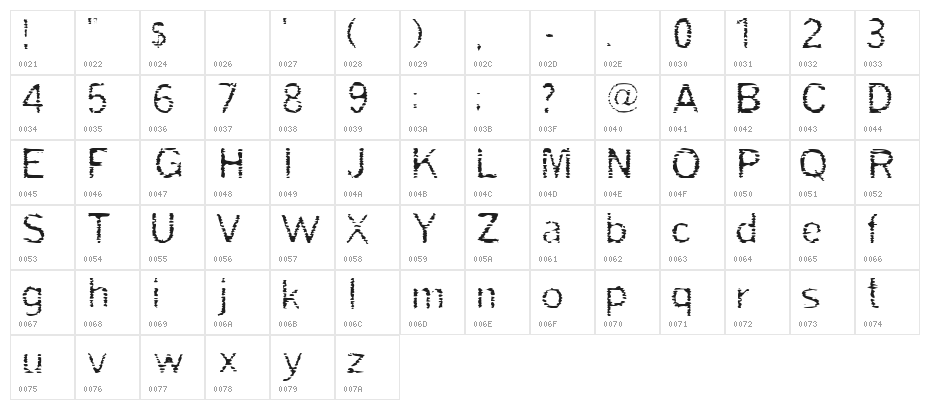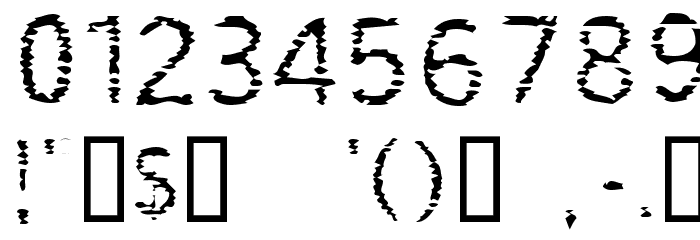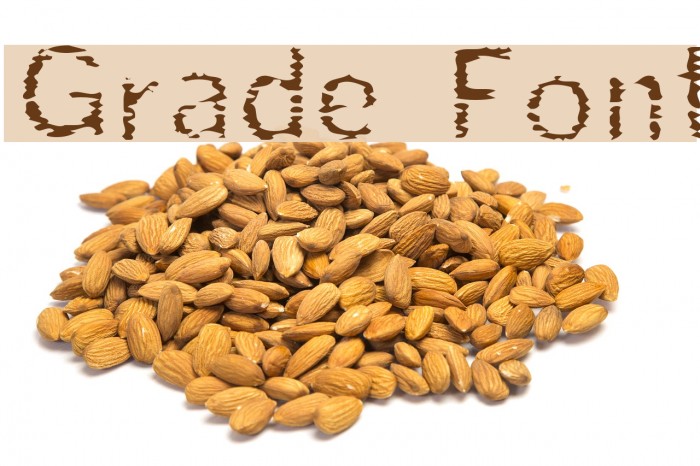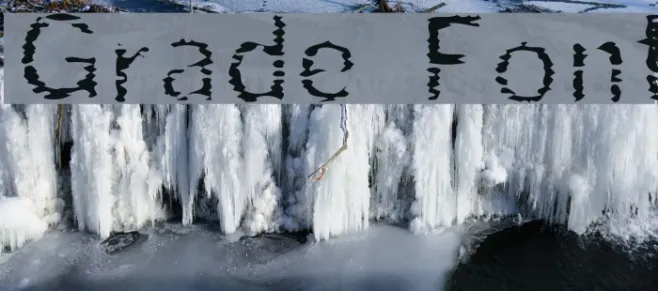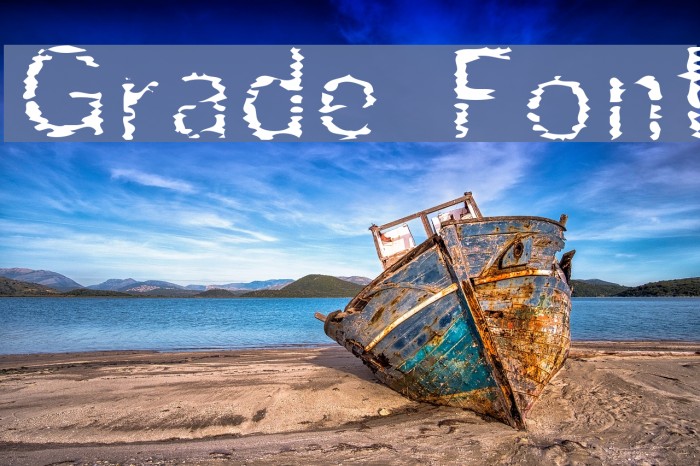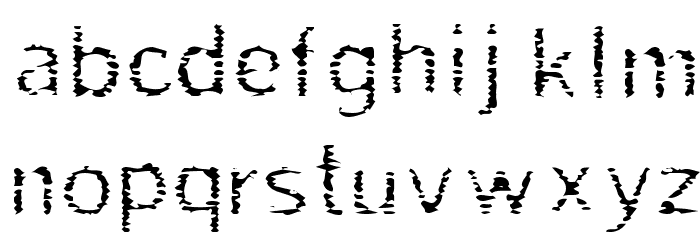
Grade Font
Grade Description
This font exhibits a distressed, eroded style, giving it a unique, weathered appearance. The characters appear as if they have been partially eroded or worn away, creating a textured effect that adds depth and character. The uppercase and lowercase letters maintain a consistent height and width, while the numbers and special characters follow the same eroded theme. This font is ideal for projects that require a rugged, vintage, or grunge aesthetic, such as posters, album covers, or themed event invitations. Its distinctive style makes it stand out, ensuring that any text using this font will capture attention.
| Overall Style | Vintage |
| Proposed Projects | Posters, album covers, themed event invitations, vintage branding. |